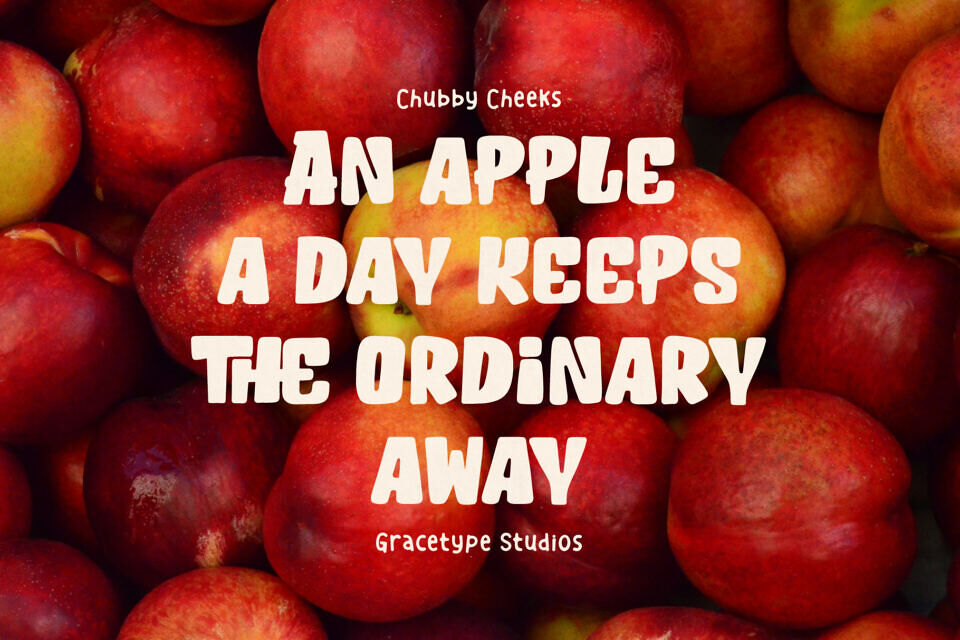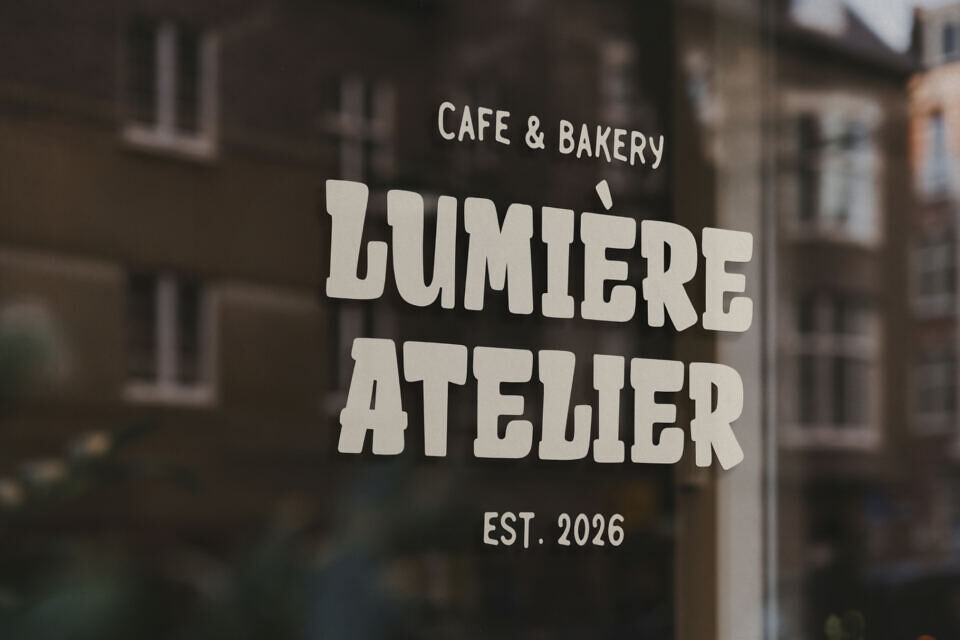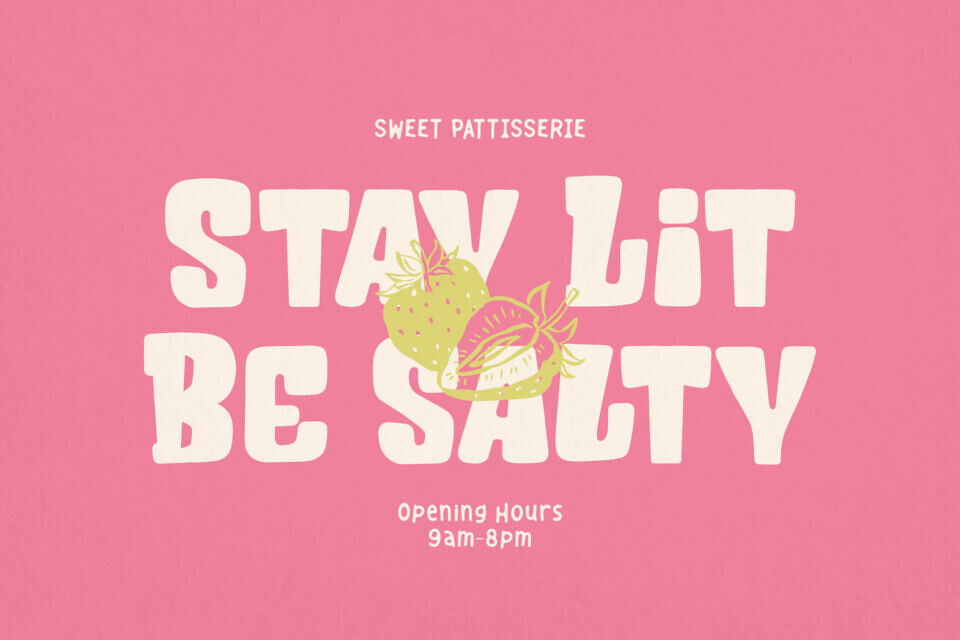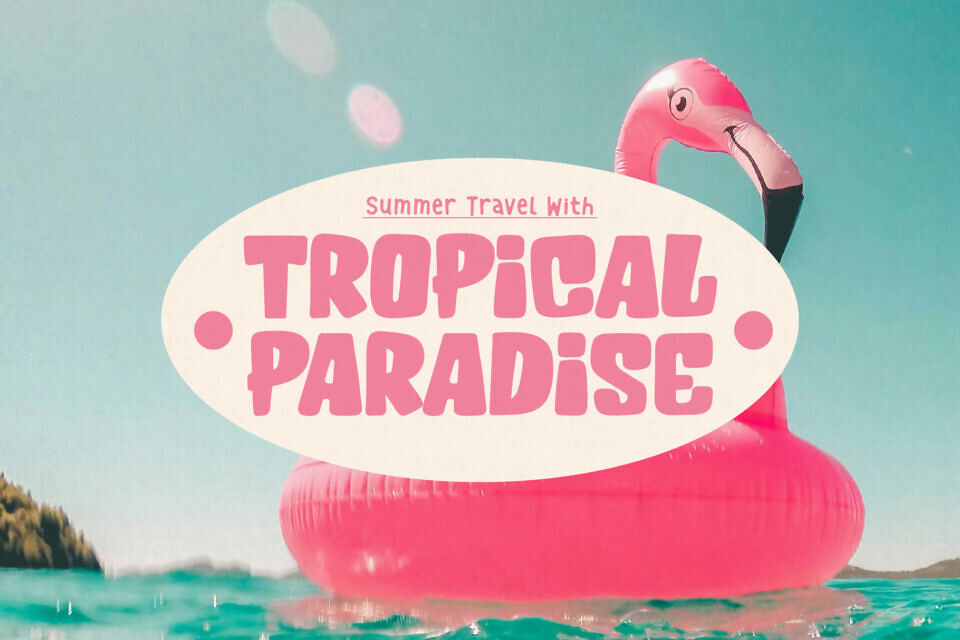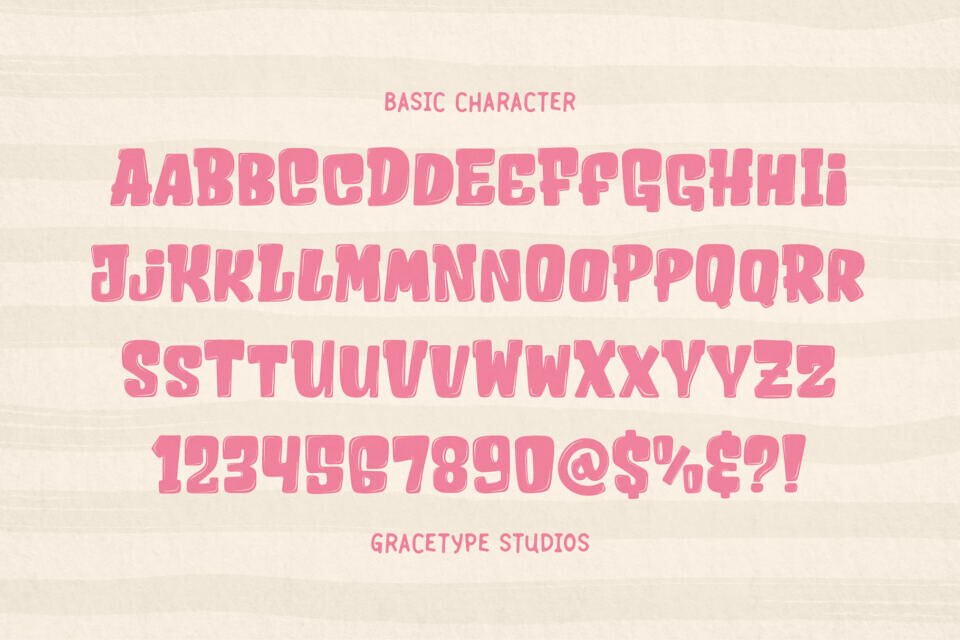
Infuse your creative designs with a sweet burst of playful charm, lighthearted warmth, and soft retro-modern aesthetic with Chubby Cheeks, an adorable hand-drawn display font.
Chubby Cheeks serves as a premier centerpiece choice for children’s storybook titles, birthday party invitation layouts, organic baby clothing graphics, bakery menu headers, playful sticker collections, and whimsical youth branding logos.